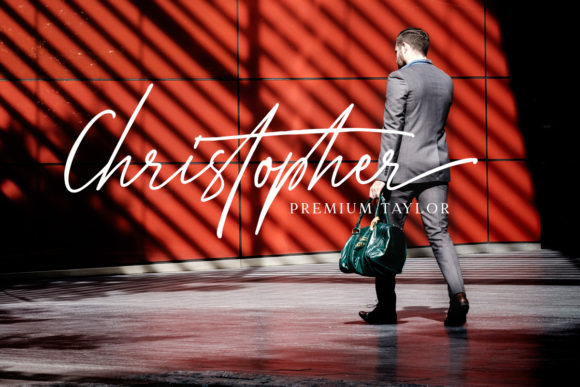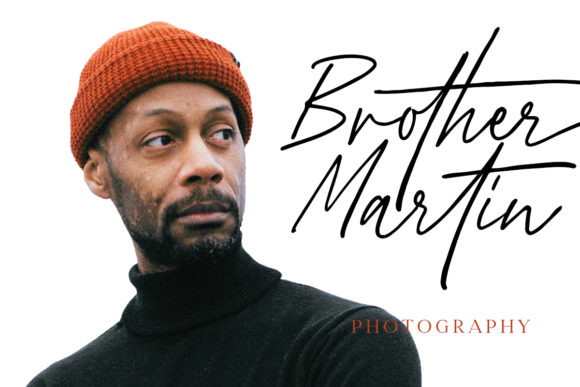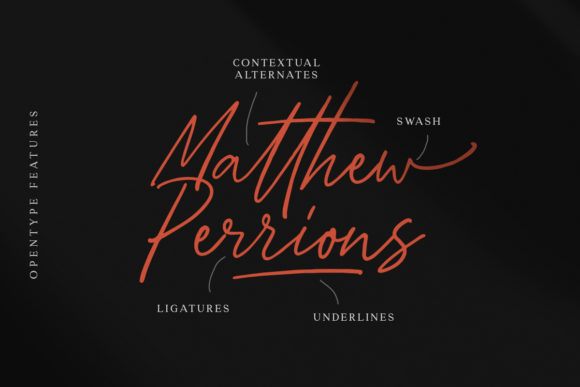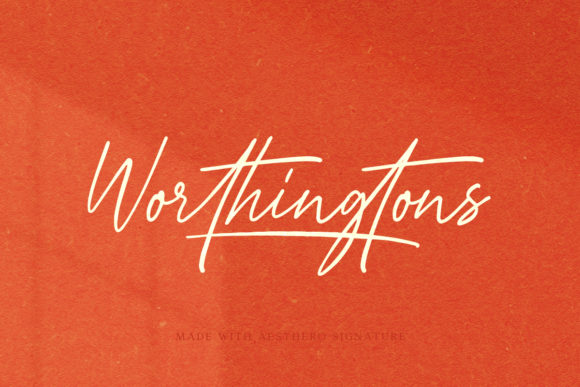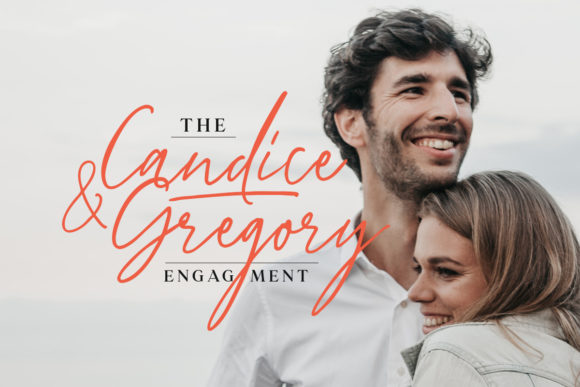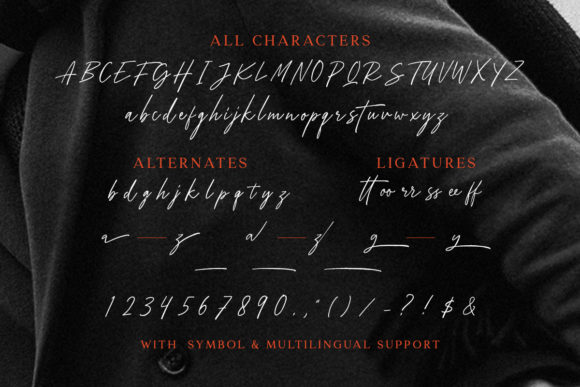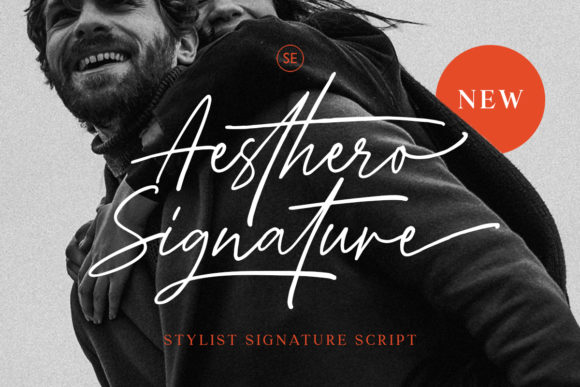
Aesthero Font: Elevate Your Designs with a Touch of Elegance
In the world of design, typography plays a crucial role in conveying the tone and personality of a brand. Aesthero, an authentic signature script font, has emerged as a game-changer for designers and crafters seeking to add a touch of sophistication to their creations. With its unique features and versatility, Aesthero is perfect for logos, branding, fashion design, and more.
What Makes Aesthero Stand Out?
Aesthero boasts an impressive array of features that set it apart from other fonts. Some of its key characteristics include:
- Cute Ligature: Aesthero’s ligatures add a playful touch to your designs, making them more visually appealing.
- Contextual Alternates: This feature allows the font to adapt to different contexts, ensuring a natural flow and rhythm in your text.
- Stylistic Alternates: Aesthero offers a range of stylistic alternates, giving you the flexibility to experiment with different styles and moods.
- Swashes: Add a dash of elegance to your designs with Aesthero’s beautiful swashes, perfect for logos, headings, and titles.
Aesthero’s versatility makes it an ideal choice for various design applications, including:
- Logos: Create stunning logos that exude elegance and sophistication.
- Branding: Establish a strong brand identity with Aesthero’s unique and memorable typography.
- Fashion Design: Add a touch of glamour to your fashion designs, whether it’s for clothing, accessories, or editorials.
- Stationery: Elevate your stationery designs, such as business cards, letterheads, and invitations, with Aesthero’s refined typography.
Why Choose Aesthero?
With so many fonts available, why should you choose Aesthero? Here are just a few compelling reasons:
- Authentic Signature Script: Aesthero’s authentic signature script style gives your designs a personal and human touch.
- High-Quality Design: Crafted with attention to detail, Aesthero is a high-quality font that will elevate your designs.
- Easy to Use: Aesthero is designed to be user-friendly, making it easy to incorporate into your design workflow.
- Multipurpose: Whether you’re a designer, crafter, or DIY enthusiast, Aesthero is a versatile font that can be used across various projects.
Tips for Using Aesthero Effectively
To get the most out of Aesthero, here are some tips to keep in mind:
- Experiment with Ligatures: Aesthero’s ligatures can add a playful touch to your designs. Experiment with different combinations to find the perfect fit.
- Mix and Match: Don’t be afraid to mix and match Aesthero’s different features, such as contextual alternates and stylistic alternates, to create a unique look.
- Pay Attention to Kerning: To ensure optimal readability, pay attention to kerning and adjust as needed.
- Use Swashes Wisely: Aesthero’s swashes can add a touch of elegance to your designs. Use them sparingly to avoid overwhelming the text.
Aesthero is a game-changing font that can elevate your designs and add a touch of sophistication. With its unique features, versatility, and ease of use, Aesthero is perfect for designers, crafters, and DIY enthusiasts seeking to create stunning visual content. Whether you’re looking to create logos, branding materials, or fashion designs, Aesthero is an excellent choice. So why wait? Give Aesthero a try today and experience the power of beautiful typography!